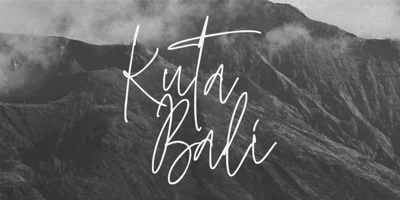
Kuta Bali Font
Kuta Bali Font is perfect for tropical resort branding, surf shop logos, beach club signage, vacation rental marketing, island-themed restaurants, travel agency materials, spa and wellness centers, and exotic destination promotions.
This font is exciting because it captures the laid-back tropical paradise atmosphere with authentic island vibes. Kuta Bali Font features relaxed, flowing letterforms inspired by Indonesian culture and beach lifestyle that evoke warmth, relaxation, and exotic adventure, making it ideal for projects that need to convey tropical escape and vacation dreams.
The Kuta Bali Font family includes regular, light, bold, and script variants, along with tropical-inspired alternates and decorative elements that enhance its island character. Each weight maintains the font's breezy aesthetic while providing different levels of casual elegance for various hospitality and tourism applications.
Whether you're developing tropical hospitality brands, creating compelling travel marketing campaigns, or designing beachside event materials, Kuta Bali Font provides exceptional tropical appeal and vacation atmosphere. Its distinctive island style makes it an excellent choice for designers seeking to add authentic Indonesian charm and paradise vibes to their projects. The font's versatility extends from digital travel platforms to resort signage, ensuring consistent performance across all tropical environments. With its carefully crafted letterforms and island-inspired aesthetics, this typeface delivers professional results that transport audiences to tropical paradise with its unmistakable Balinese character and exotic vacation appeal.